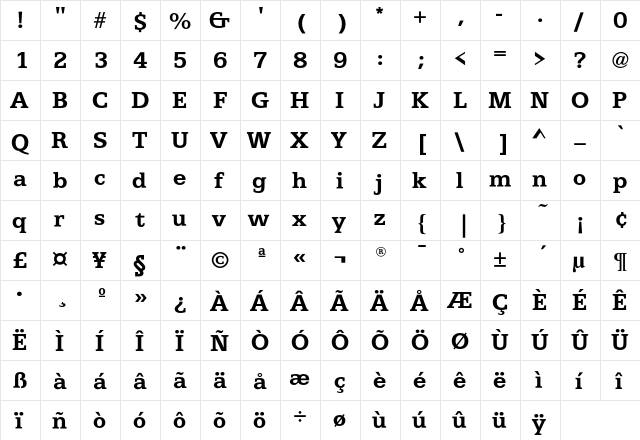
Egyptian505EF Bold
Design Context for Egyptian505EF Typeface
Egyptian505EF combines the readability of serif typography with the visual weight of a slab construction, resulting in a typeface that feels both authoritative and approachable. The heavy weight commands attention and anchors typographic hierarchies.
Works well in editorial design, news publishing, impactful branding, and poster typography.
Pro Tip: Try Egyptian505EF set tight in headlines for a classic editorial feel. Its slab serifs create strong horizontal rhythm that anchors a page layout.